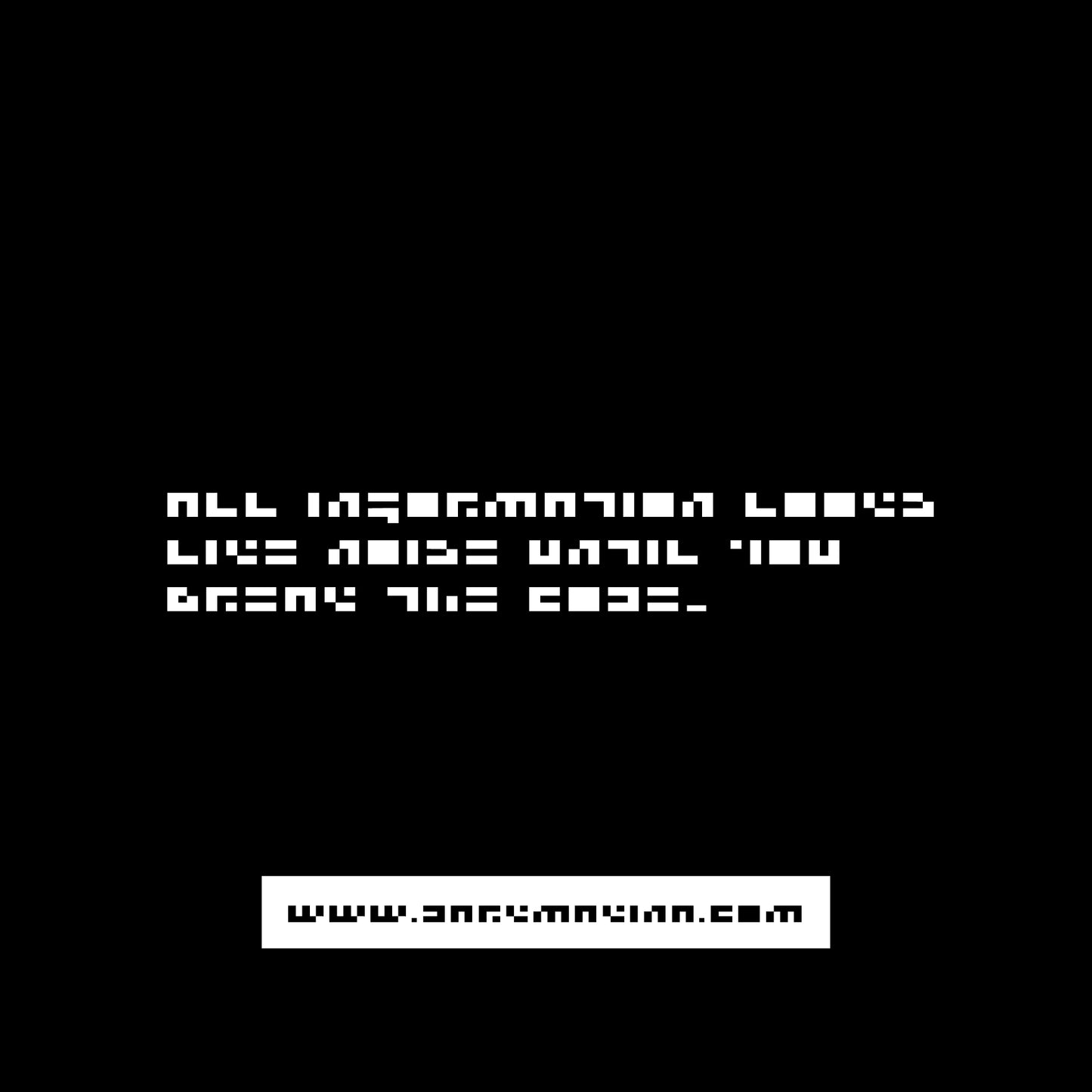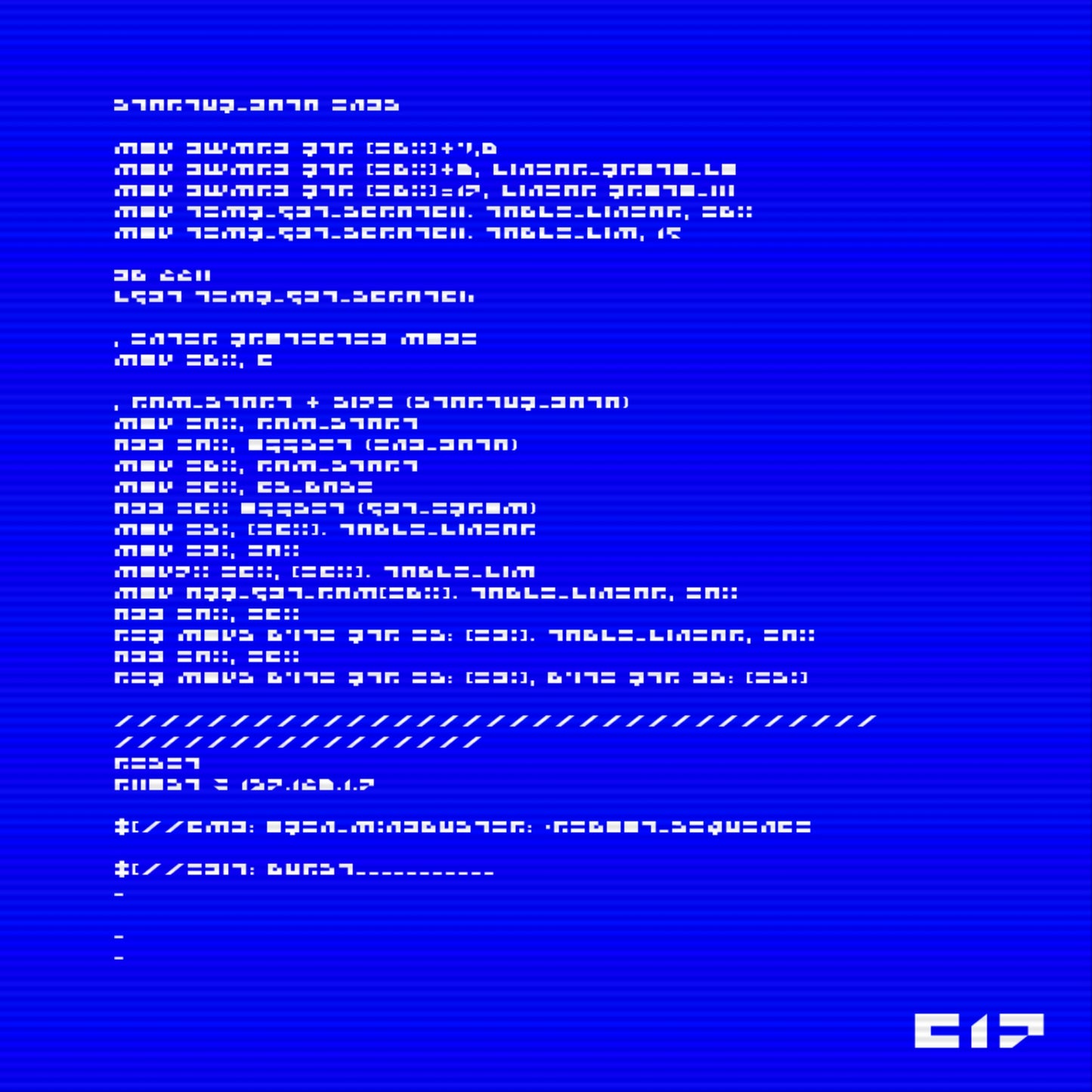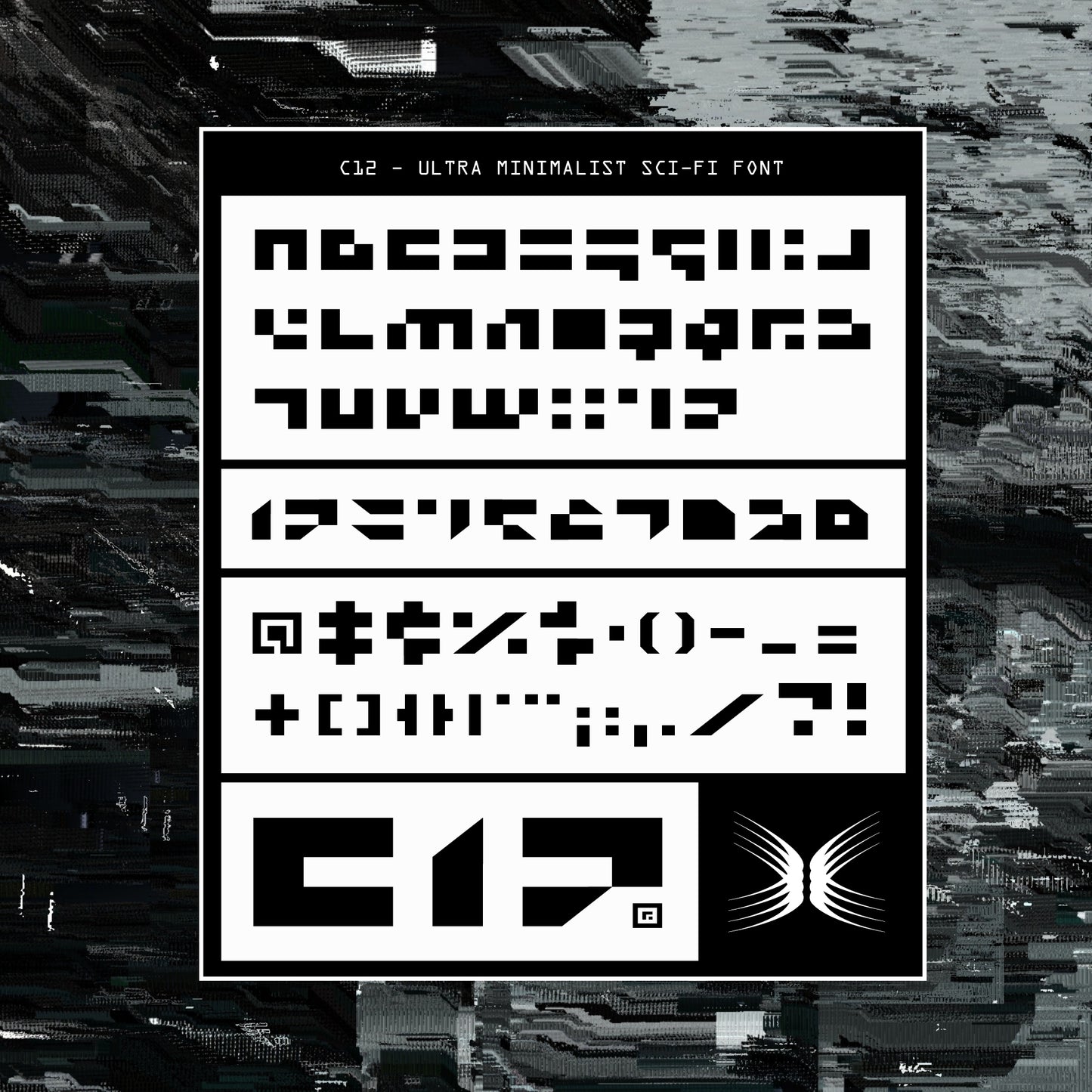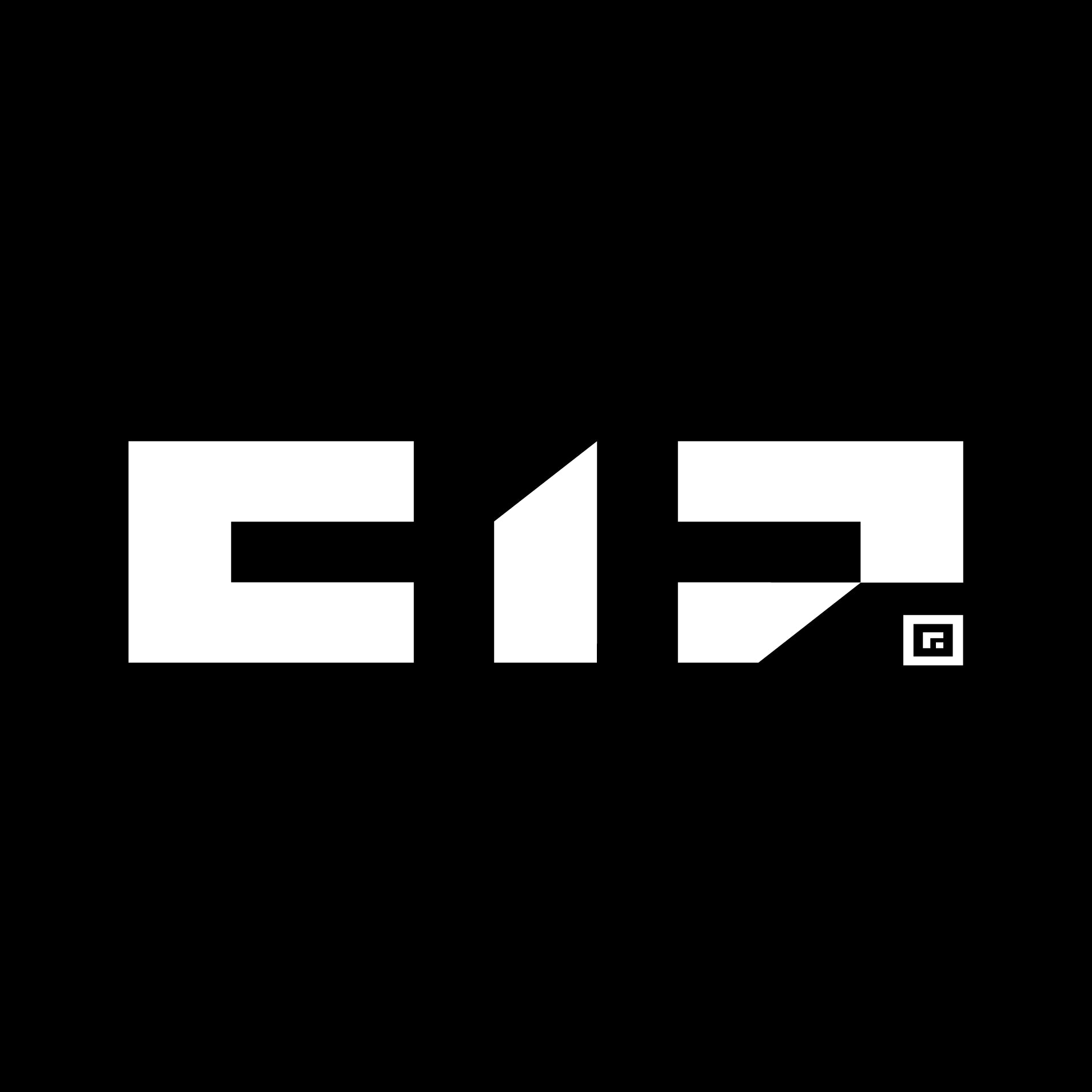
C12 FONT
C12 is an Ultra Minimalist Sci-Fi Font. Pixel style letters, sleek and clean futuristic digits and symbols. Perfect for technical applications and above all, for having fun.